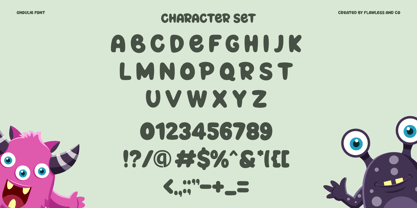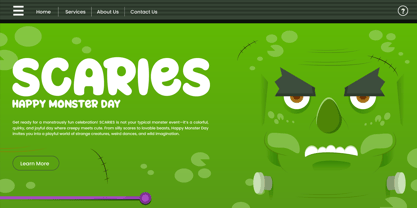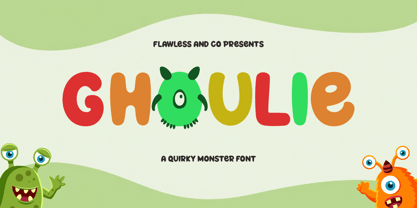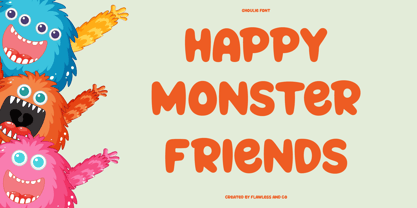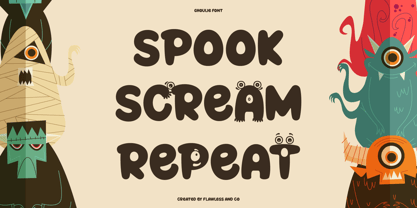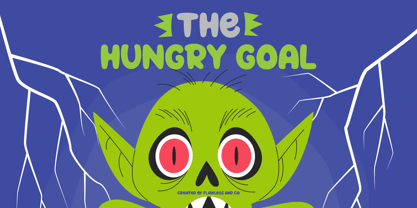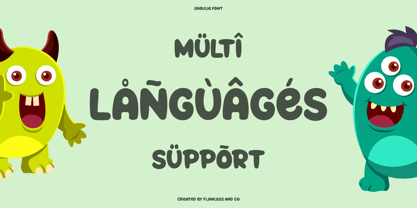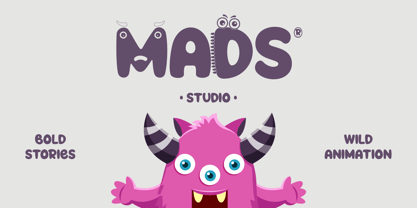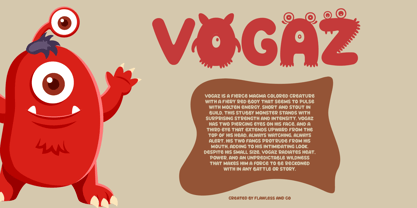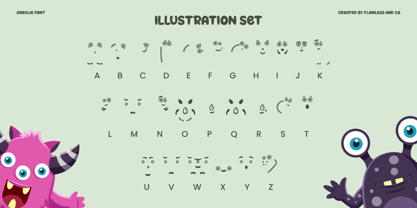
Ghoulie
Ghoulie is a playful and quirky monster font, full of charm and cheeky personality. Each letter feels alive, bouncing with color and mischievous energy, as if little monsters are peeking out from the alphabet. With its rounded, friendly shapes and monster-inspired details, Ghoulie brings fun to every project—perfect for kids’ books, cartoons, games, party invitations, or anything that needs a touch of silly spookiness.
Features :
Multilingual, Uppercase alphabet A-Z, Lowercase alphabet a-z, Numbers 0-9, Some punctuation, Alternates & Ligatures